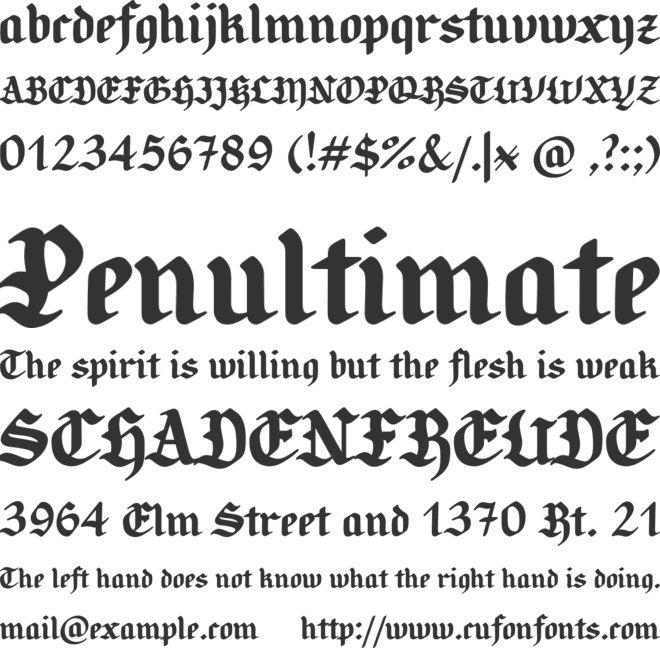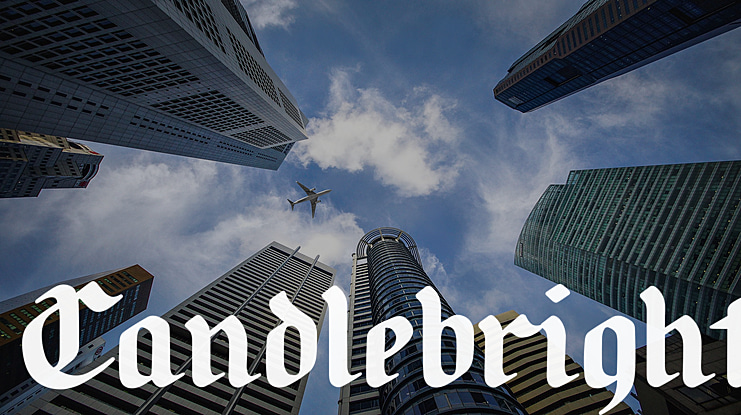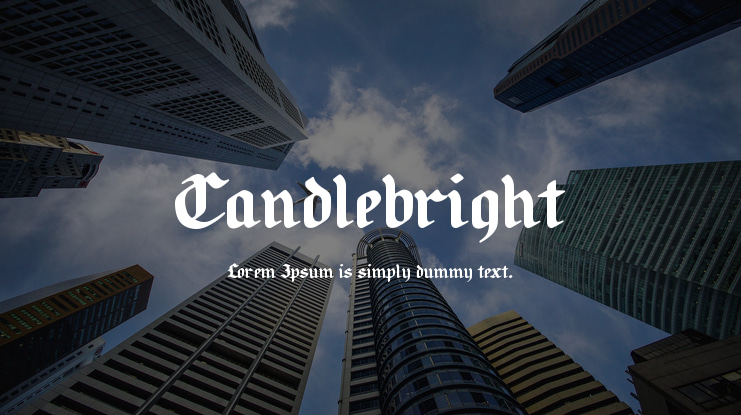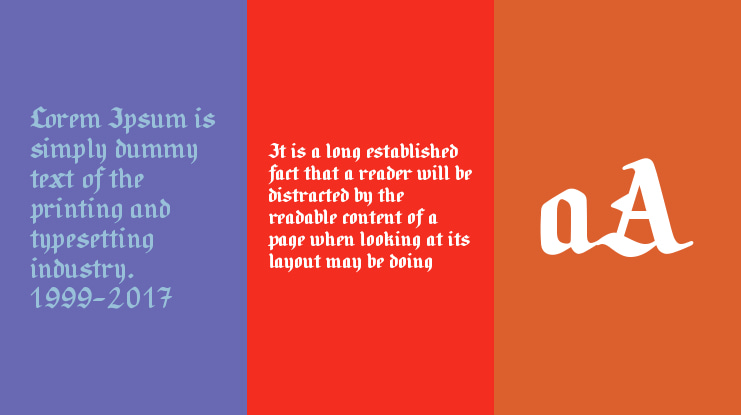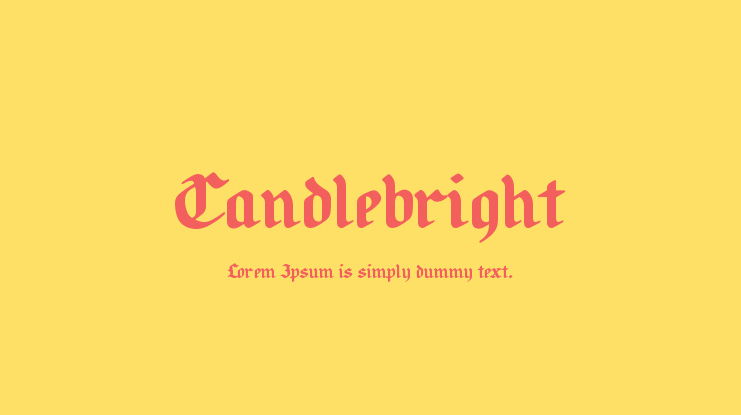
Candlebright Font
Ana Parracho
"Candlebright" is a gothic calligraphy font, with 345 glyphs, including:
-A-Z, a-z, 0-9, accents, punctuation and symbols -Stylistic alternates -Swashes -Ligatures